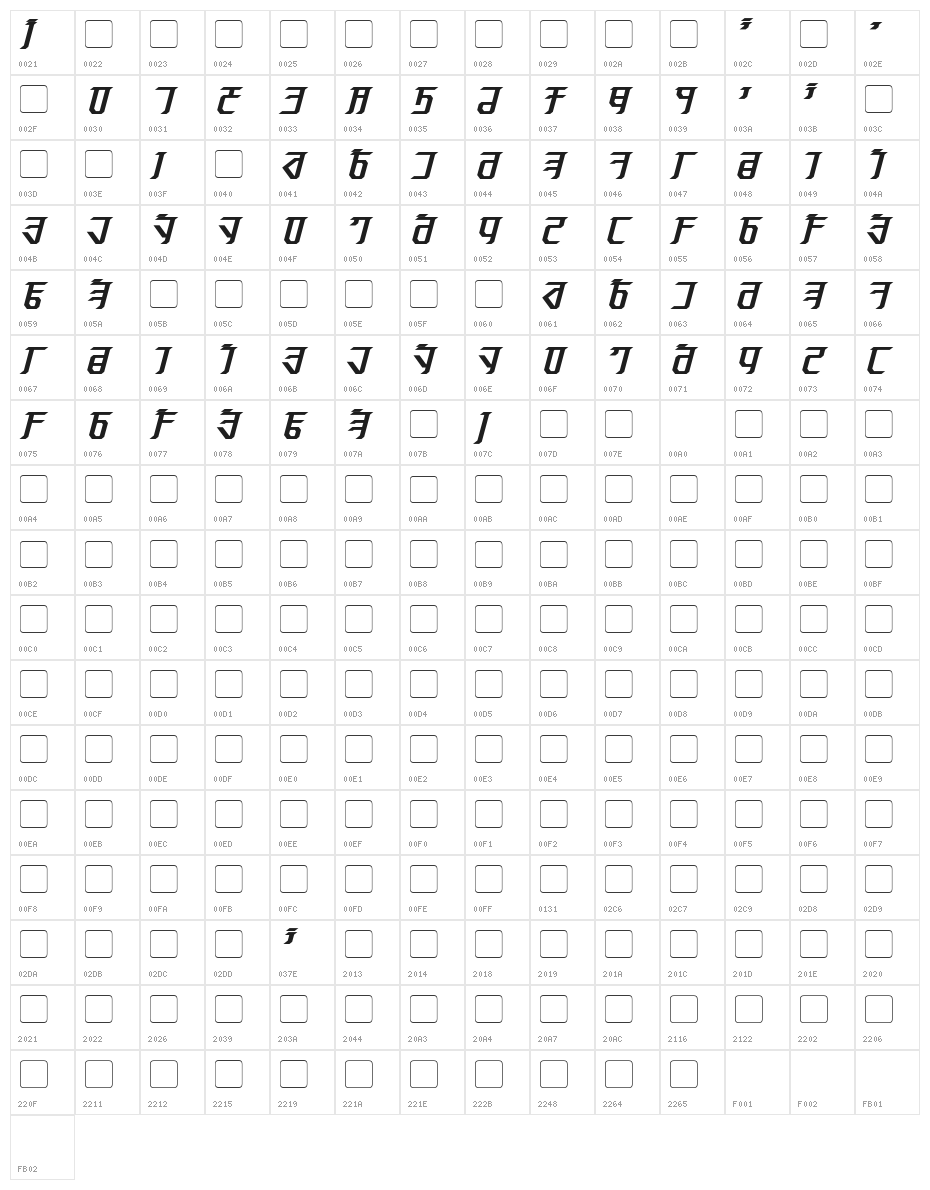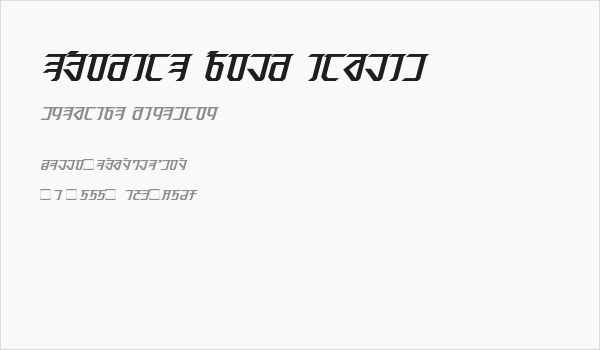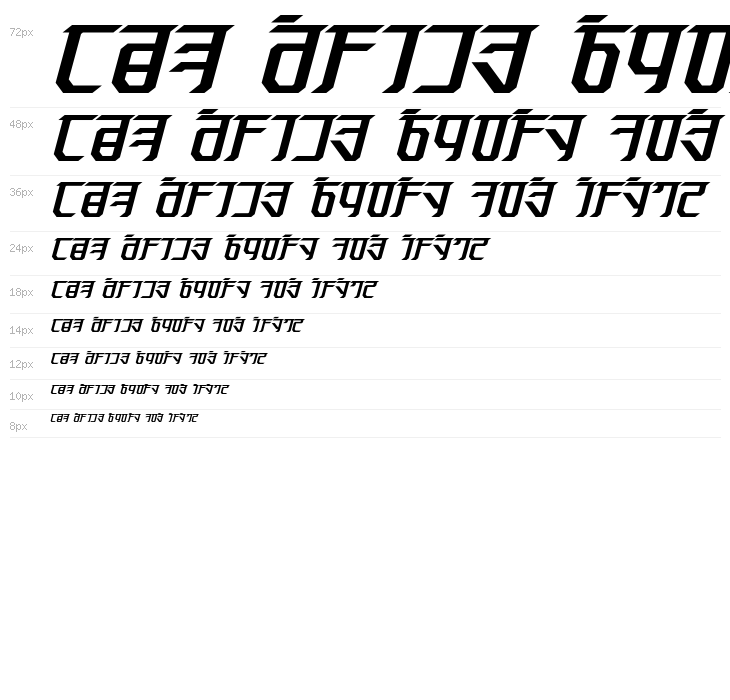
Exodite Bold Italic Font
Exodite Bold Italic Description
This font features a bold and italicized style with sharp, angular lines and a futuristic aesthetic. The characters are designed with a distinct slant, giving them a dynamic and forward-moving appearance. The strokes are thick and consistent, providing a strong visual impact. The uppercase and lowercase letters maintain a cohesive look, while the numerals and special characters complement the overall design. The font's unique style makes it suitable for projects that require a modern and edgy feel.
| Proposed Projects | Ideal for sci-fi themed designs, video game titles, tech branding, and dynamic posters. |